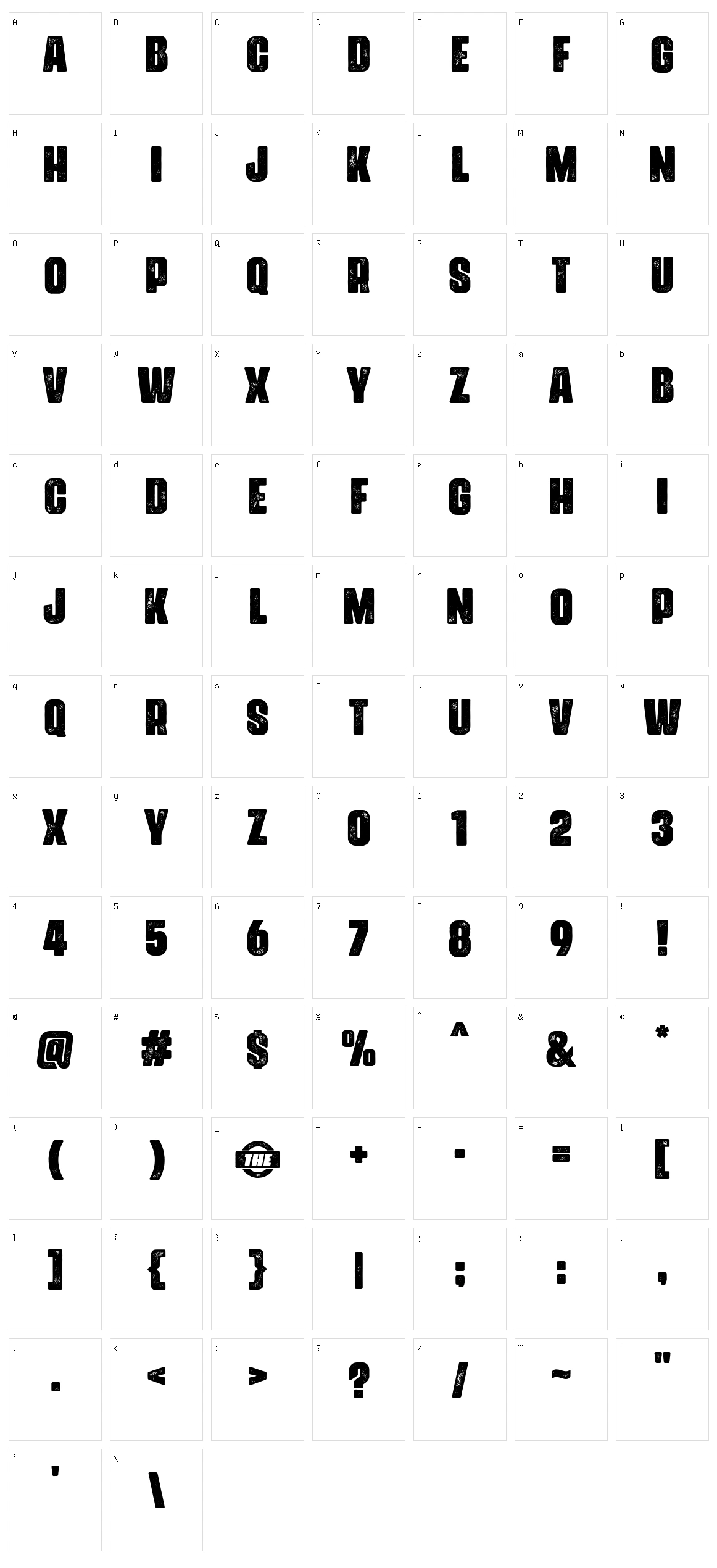
The free font Urzeit is carefully designed by Shaped Fonts, showcasing a thoughtful balance of creativity and usability and falls under the Eroded font style. When you download the ZIP file, it contains only 1240.4 KB of font files, making it lightweight and quick to download. Please review the license details below to understand permitted usage and distribution rights. If license information is not available, we recommend using this font for personal projects only or contacting the author directly for commercial usage permissions.